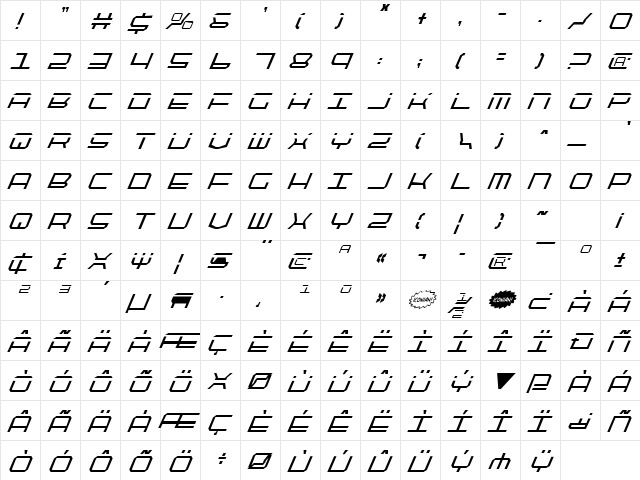
QuickTech Condensed Italic Font Preview
| Designer | Dan Zadorozny |
Design Context for QuickTech Condensed Italic Typeface
QuickTech Condensed Italic has a distinctly futuristic character, with geometric precision and clean angles that feel at home in technology, gaming, and sci-fi contexts. The slanted form adds forward momentum and visual energy. Its narrow stance lets it pack a punch even in space-constrained designs.
Pro Tip: Use QuickTech Condensed Italic in combination with a neutral sans for body text. Let it define the brand voice in headlines while keeping reading comfortable elsewhere.